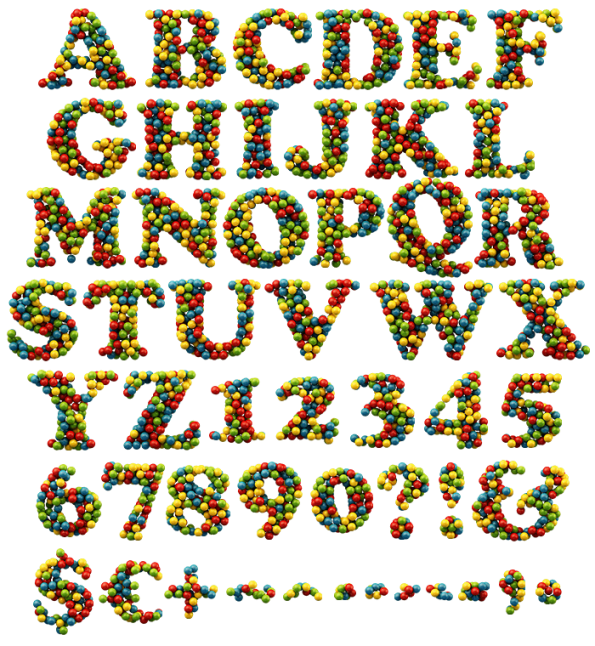
Playroom Font. Coloured Plastic Ball Letters
Red, yellow, green and blue plastic balls tipped into letter shapes, exactly the ones from a ball pit. They are glossy, slightly scuffed and piled several deep, so the colours land in a different order in every character. Nothing is arranged. That randomness is what makes it read as play rather than pattern.
Straight Out of a Ball Pit
These are, of course, the hollow plastic balls every soft-play centre owns. Red, yellow, green and blue pile several deep inside each letter, glossy on top and slightly scuffed where they have been handled. Because the balls sit at different depths, the ones behind fall into shadow and the colours darken. So the strokes get real body instead of looking flat. Naturally a few balls escape past the outline.
Why the Playroom Font Never Repeats
Colour order changes in every glyph, which is why the Playroom Font never looks like a pattern fill. Count the balls in an M and then in an N, and no sequence repeats. The letterform underneath is a wide bold sans with big open counters, since anything narrower would fill up with plastic. Above all the four colours stay evenly balanced, so no single hue takes over a word. Besides, the gloss gives each ball its own highlight.
Animated preview of the Playroom Font cycling through ball-packed letters
Kids Brands, Events and Bright Retail
Children fill this brief instantly, obviously. In addition, nurseries, soft play, toy packaging, birthday invitations, family festivals, clinics and bright retail signage all suit it. The mockups run it across a teal book, a black record sleeve, a red and blue phone screen, a green gift box and a pale sale card, so it holds on dark and light alike. Meanwhile the loose balls make a usable background on their own.
Pouring the Playroom Font Out
Black poster spelling FONT in coloured balls of the Playroom Font
Ball-packed alphabet and numerals of the Playroom Font beside a large letter I
Teal book cover carrying a word in the Playroom Font
Black record sleeve titled in coloured balls of the Playroom Font
Phone on a red and blue ground showing two words in the Playroom Font
Close view of the glossy plastic balls that build every Playroom Font letter
Open box on a green ground with a phrase set in the Playroom Font
Pale card repeating a short word in the Playroom Font
Dark curled poster carrying a short line in the Playroom Font
Transparent PNG letters and numerals of the Playroom Font on a checkered background